Back in May, a Romanian designer posted a Type ID query on Typophile for a series of beautiful condensed and serifed letterforms from the 1950s. The letterforms seem to have been hand-drawn, and I fell in love with them immediately. The samples provided were just all caps, so I fleshed out digital outlines for a few of the letters, and posted them on the forum. Then, the normal business that characterizes my working hours got the better of me, and I forgot about the project.
Recently, I rekindled my old flame of passion for these forms. I completed the uppercase letters, and began working on the lowercase. In a few days, I’ll post a PDF of my progress to the Typophile critique forums.
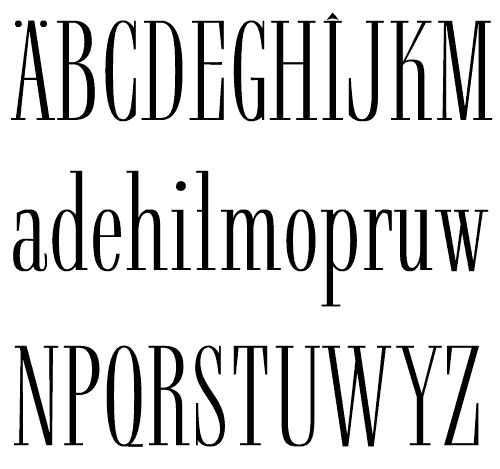
Image details:
Top – A few upper and lowercase letters.
Bottom – A more fleshed out alphabet. Further details to come…